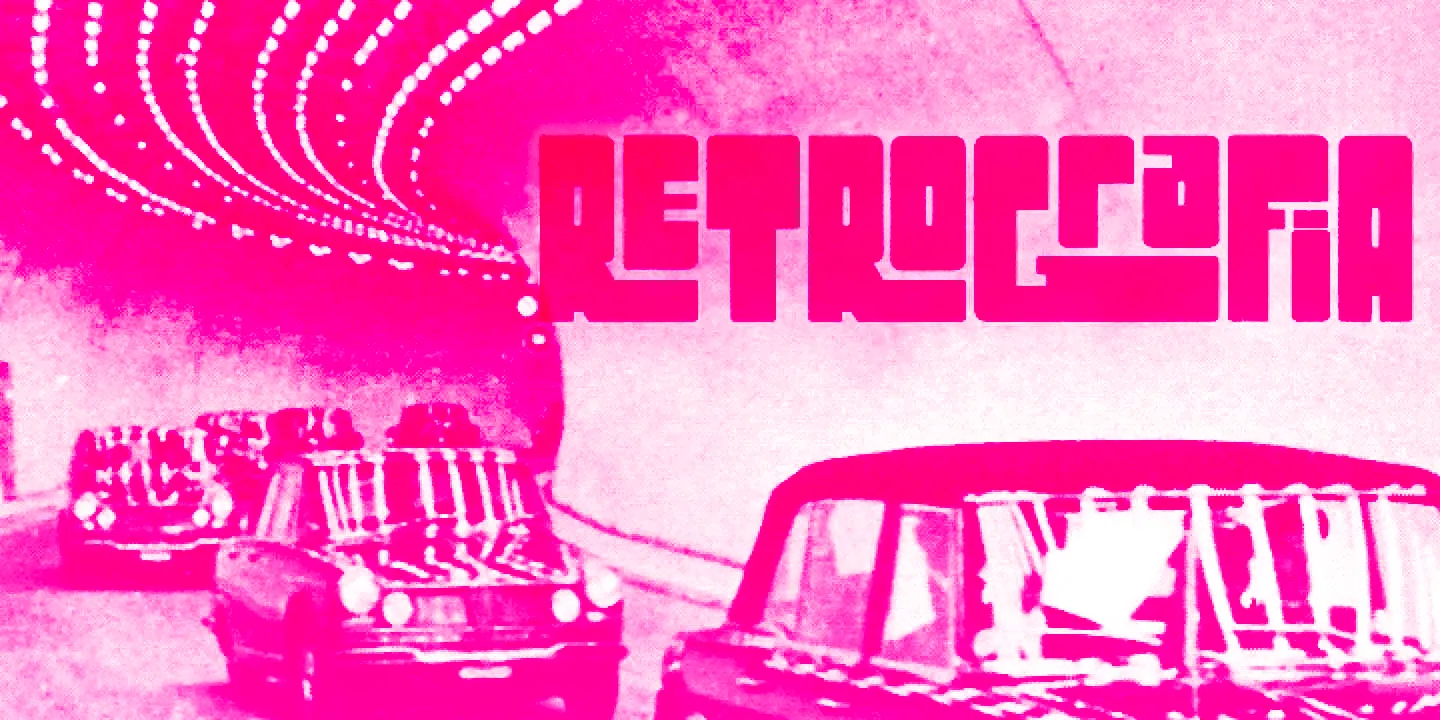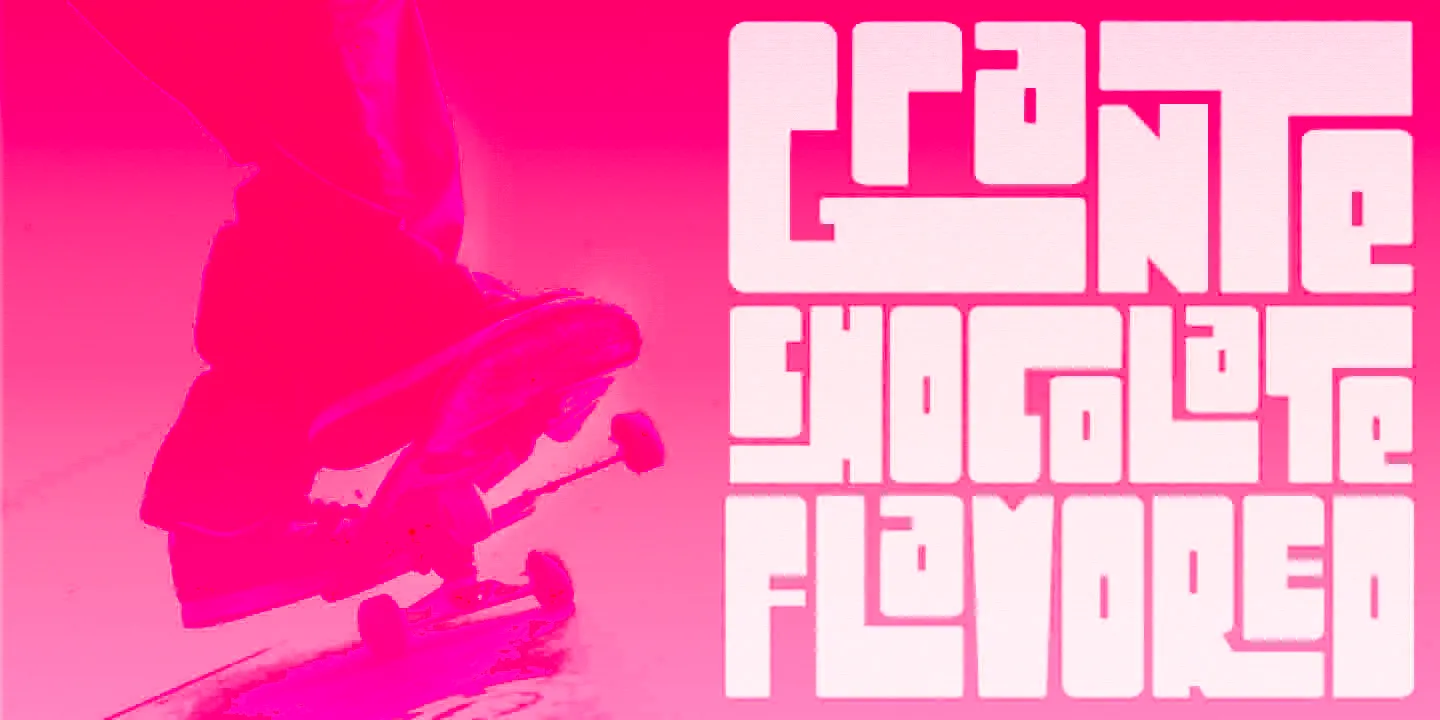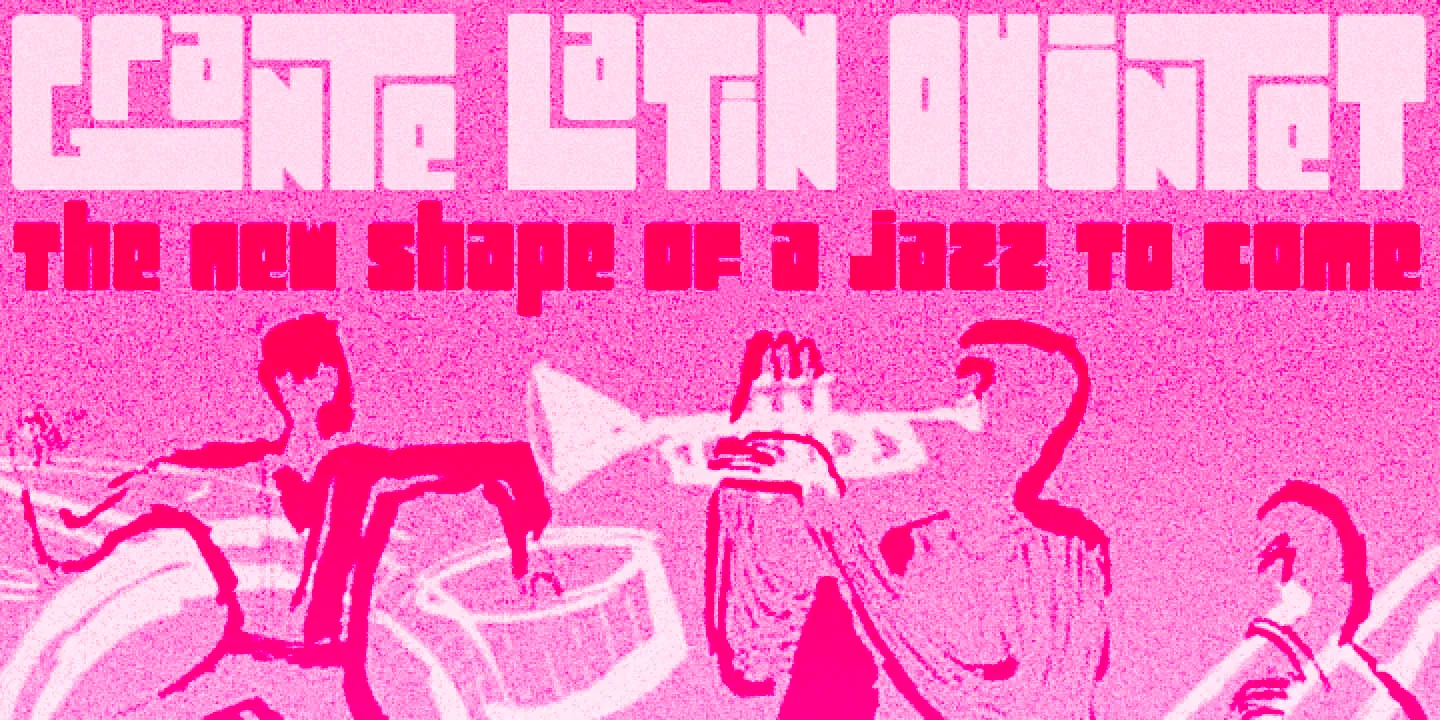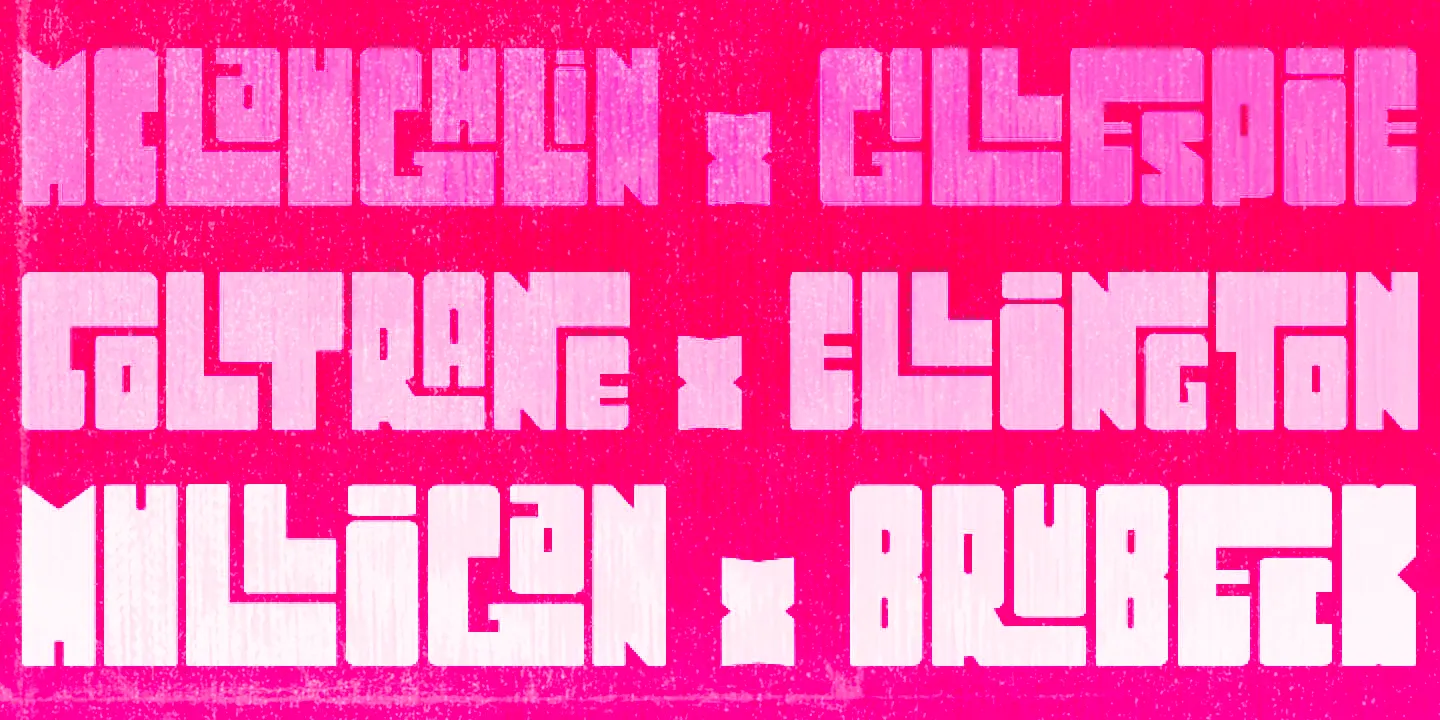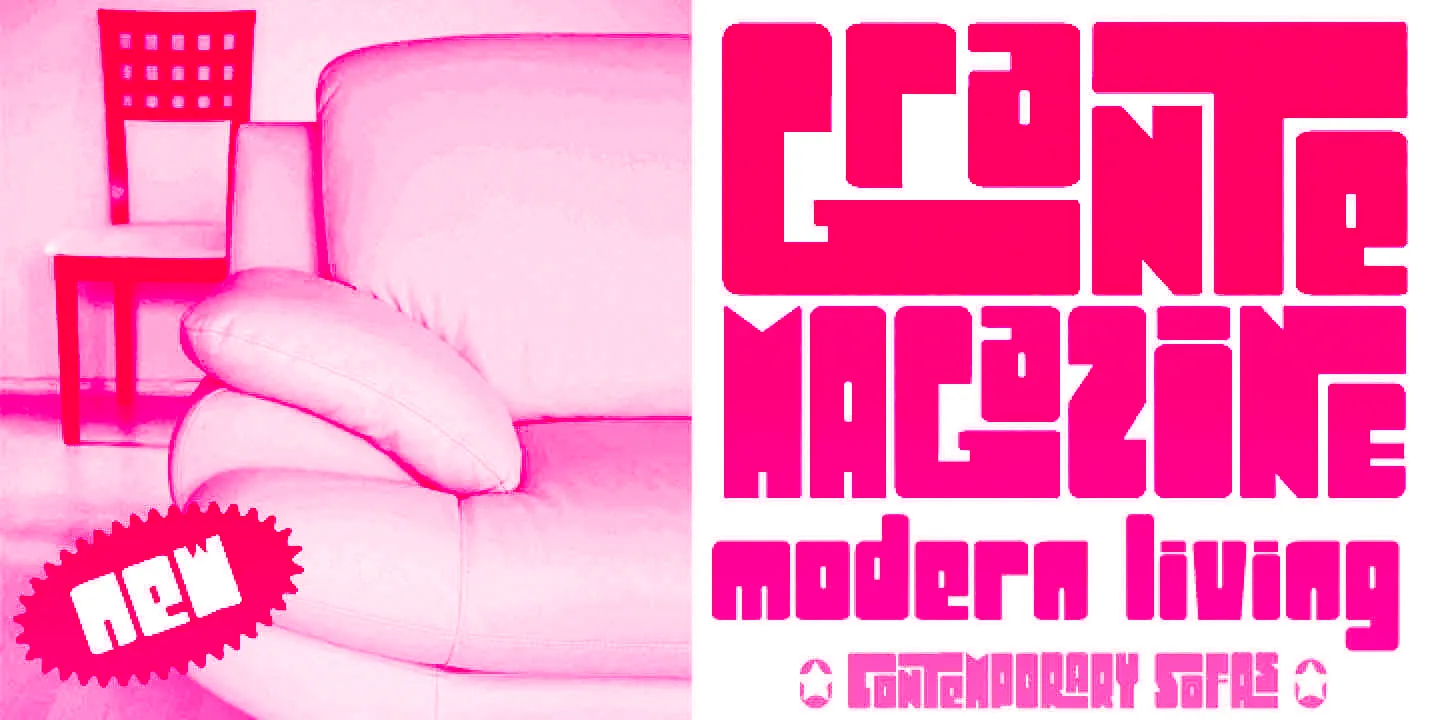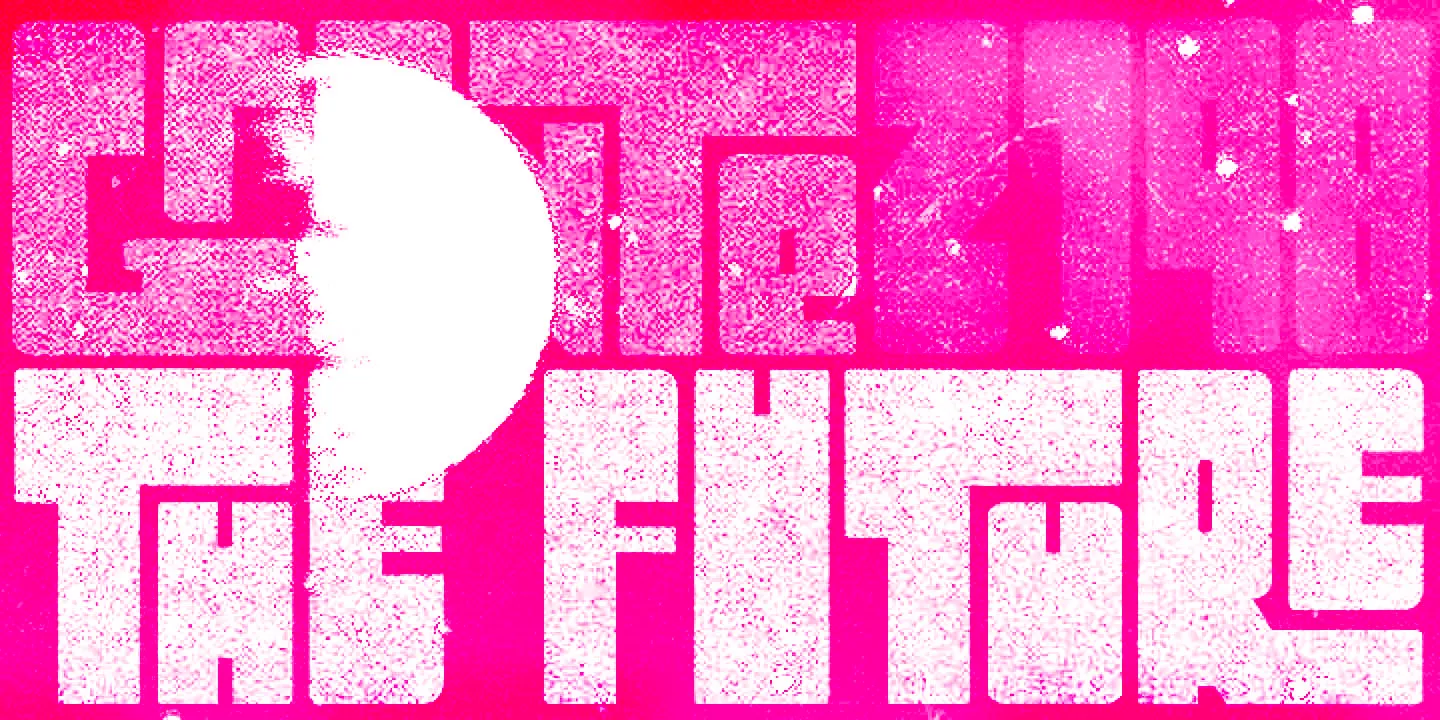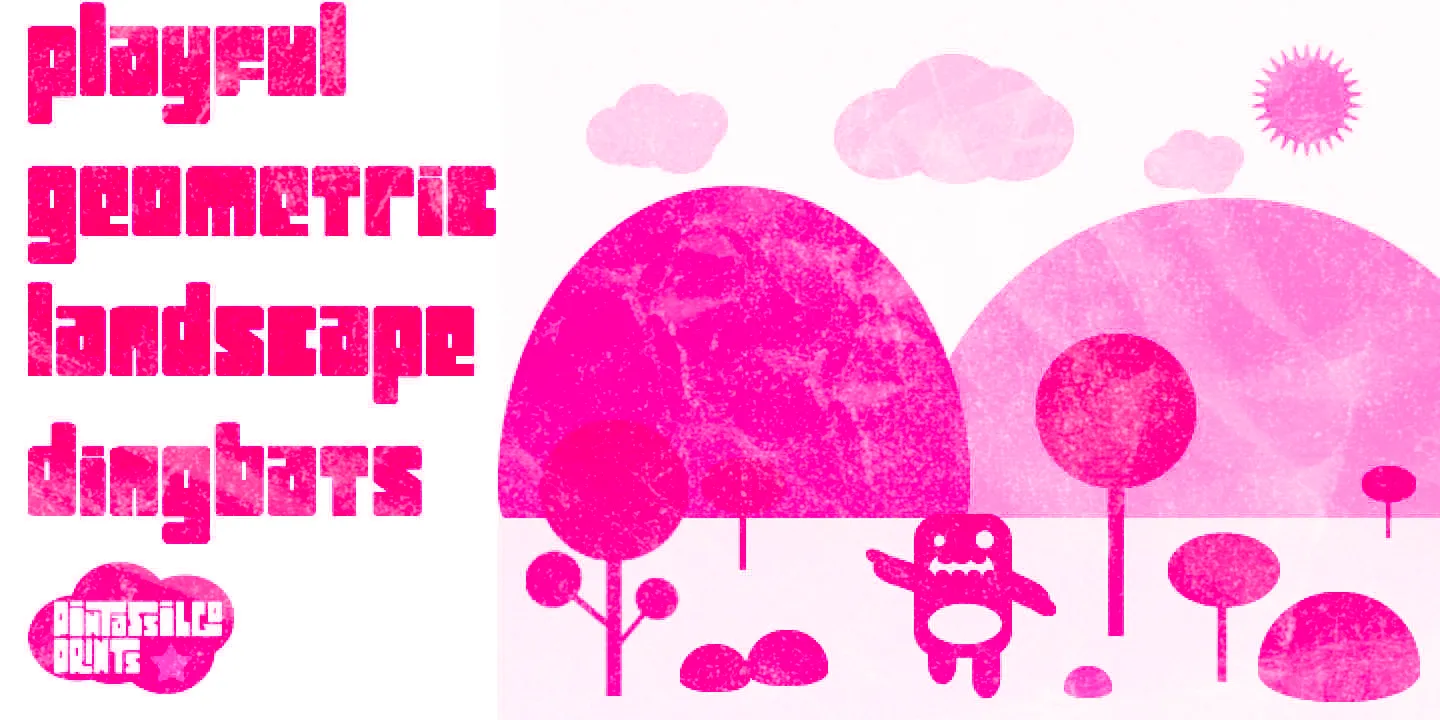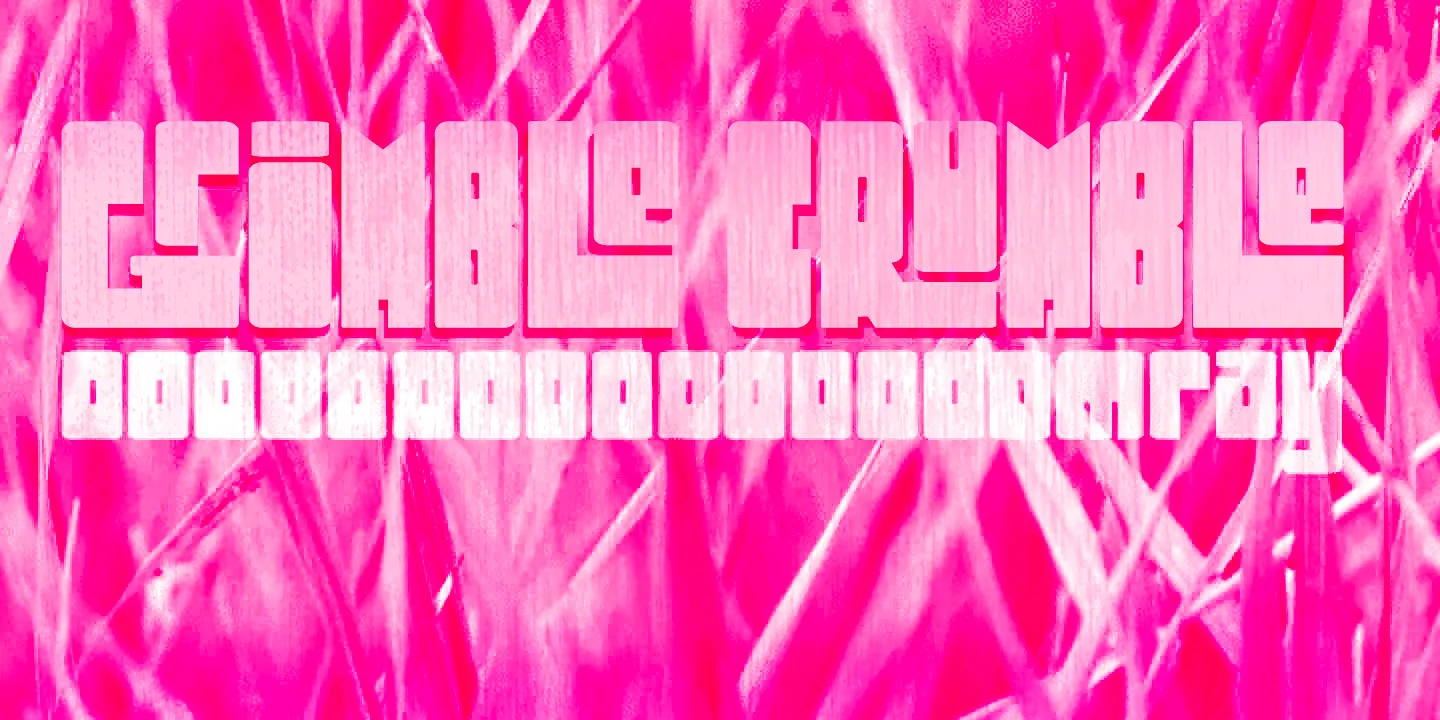
Grante Font
Grante
Grante is a highly geometric, ultra-bold display face with extreme rectangular proportions and stylized, nearly monolithic letterforms. With its minimalist counters and dramatic shaping, it breaks the mold of what a sans serif typeface might be. Plus! Impossibly cool word shapes that would catch the eye of anyone passing by when the interlocked ligatures are used. There is also a handy set of dingbats included! Use Grante for branding, merchandising, posters, and stickers, too!